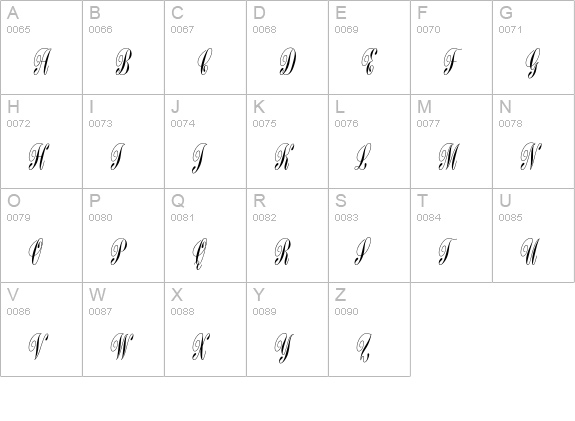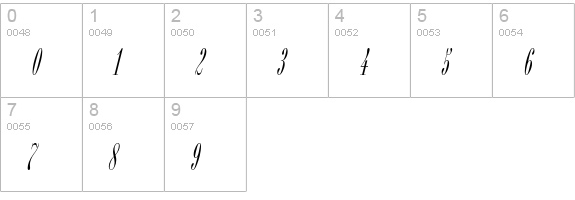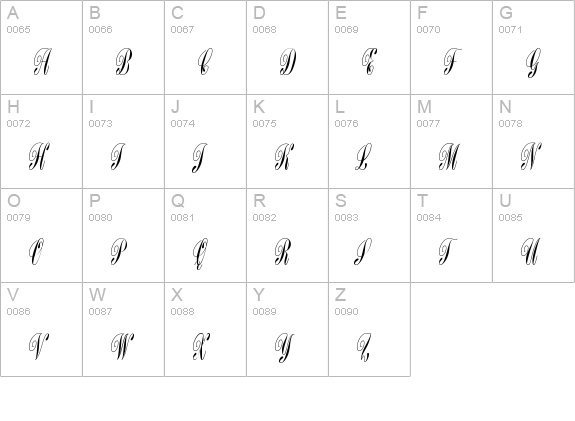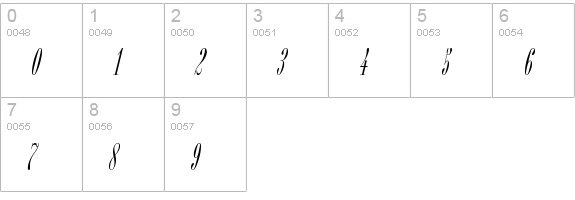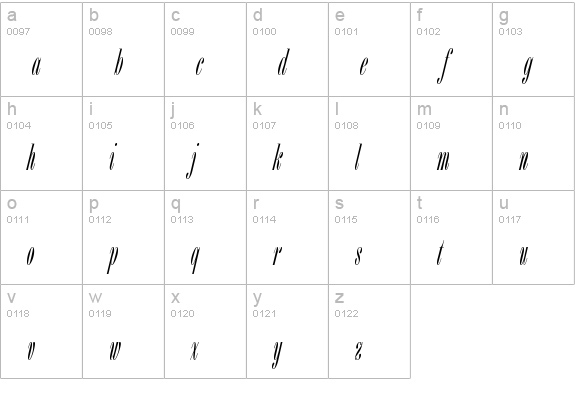
Bordeaux Script Std is a stunning and elegant script font that exudes sophistication and charm. With its delicate curves and flowing lines, this font is perfect for adding a touch of class to your designs. Whether you're creating wedding invitations, branding materials, or any other project that requires a touch of elegance, Bordeaux Script Std is sure to impress. The best part? Bordeaux Script Std is available for free download at FontsMarket.com. This means you can add this beautiful font to your collection without having to spend a dime. Don't miss out on this opportunity to enhance your designs with the timeless beauty of Bordeaux Script Std. Download it today and elevate your projects to the next level.